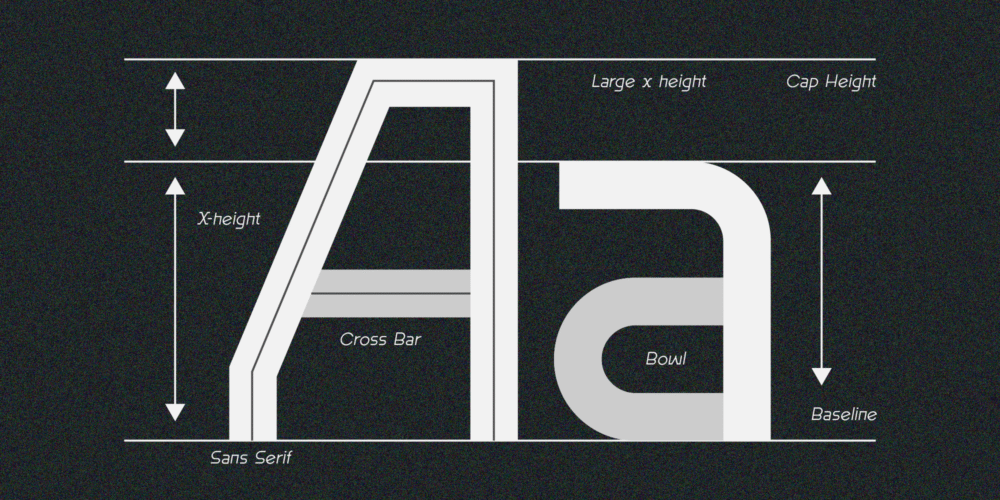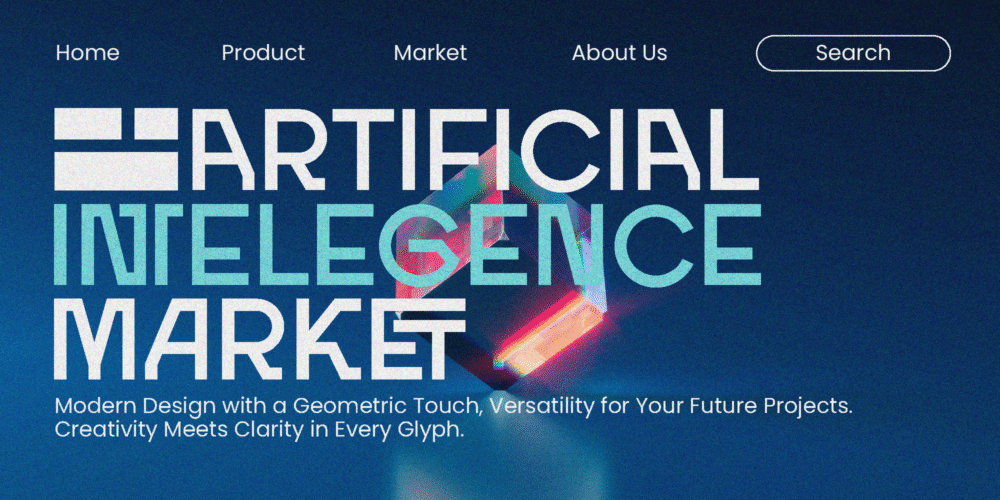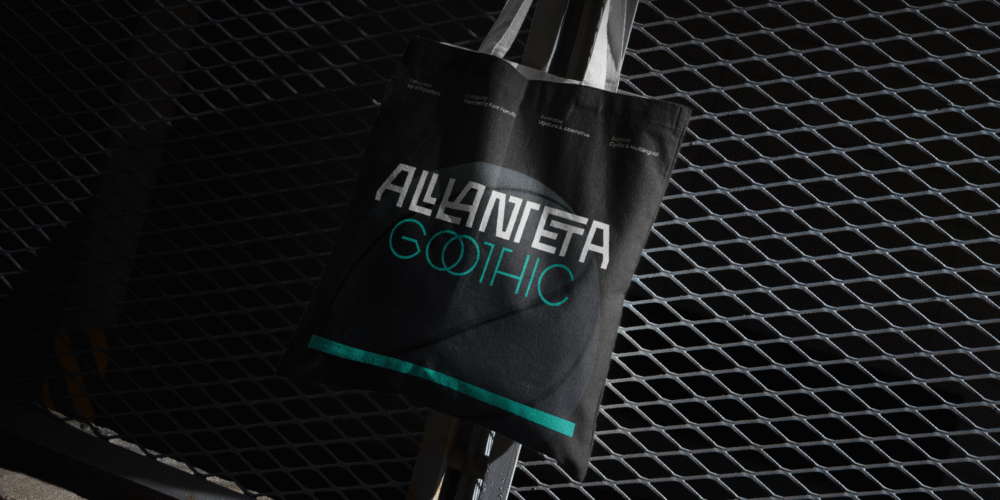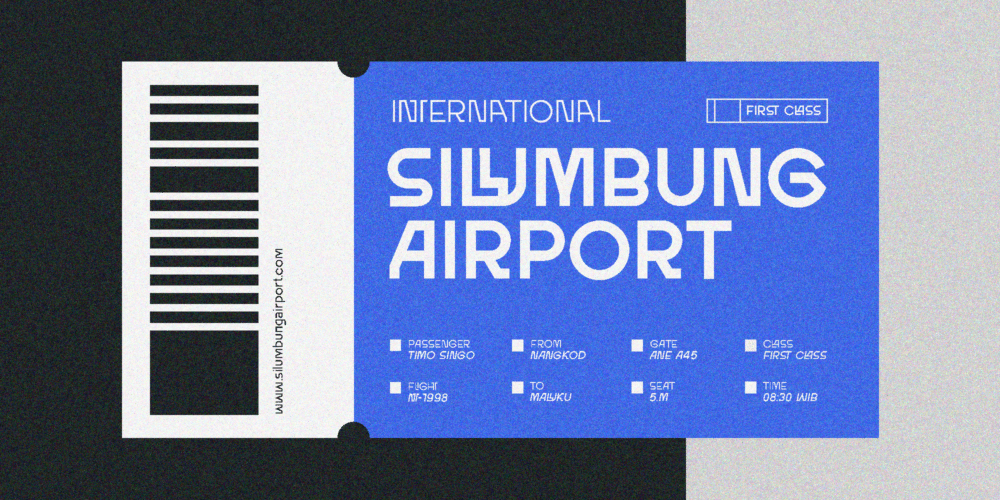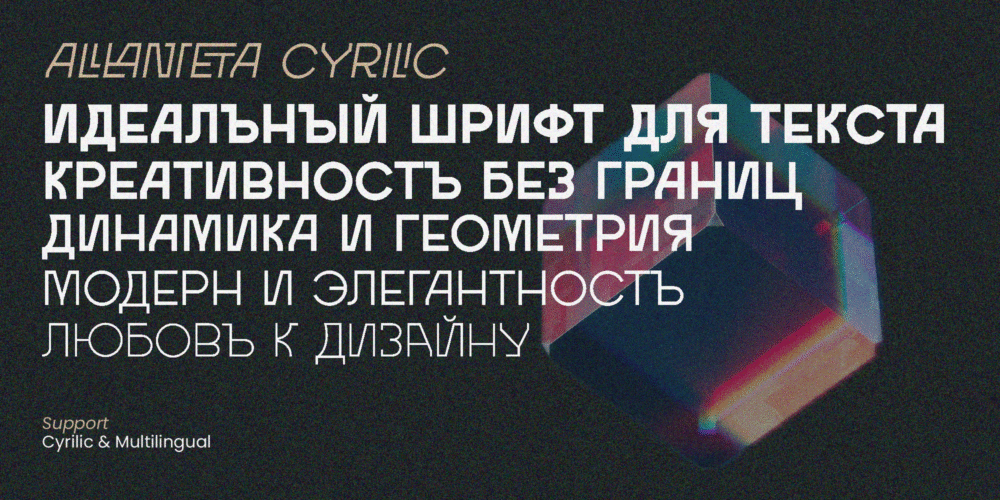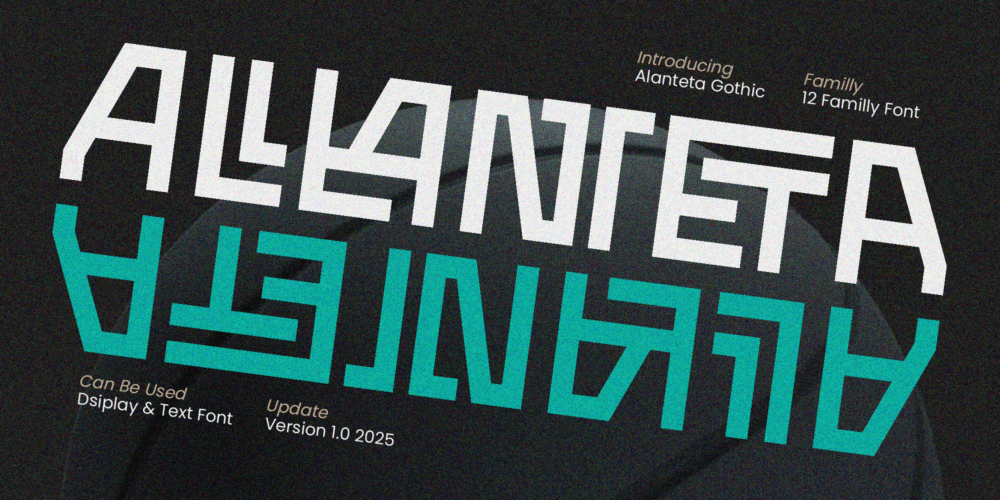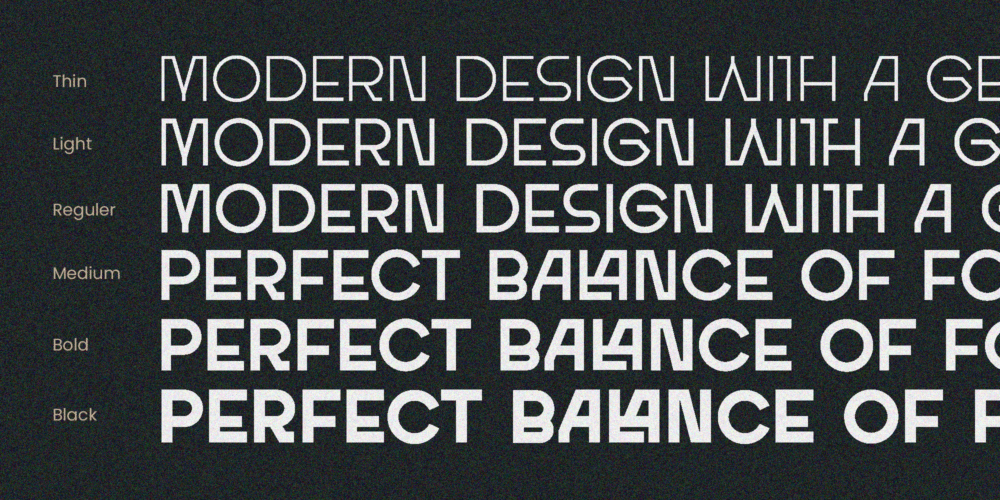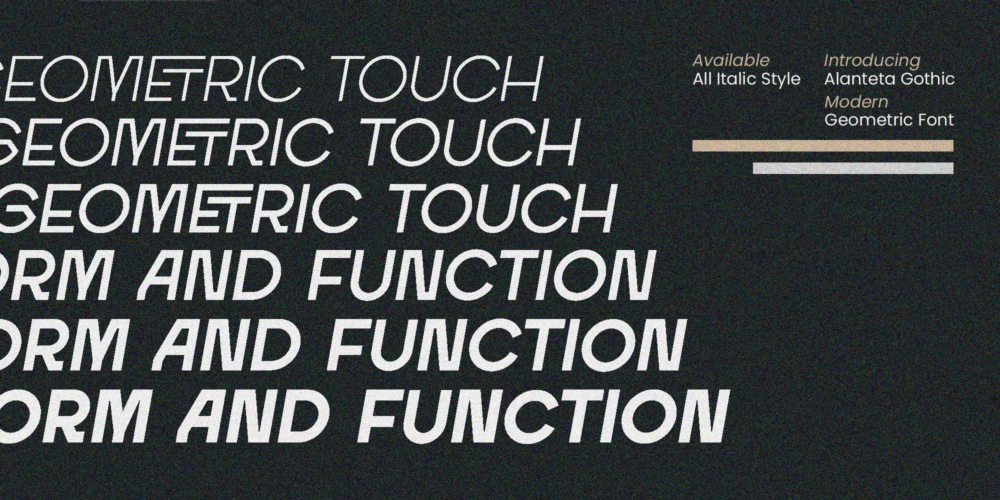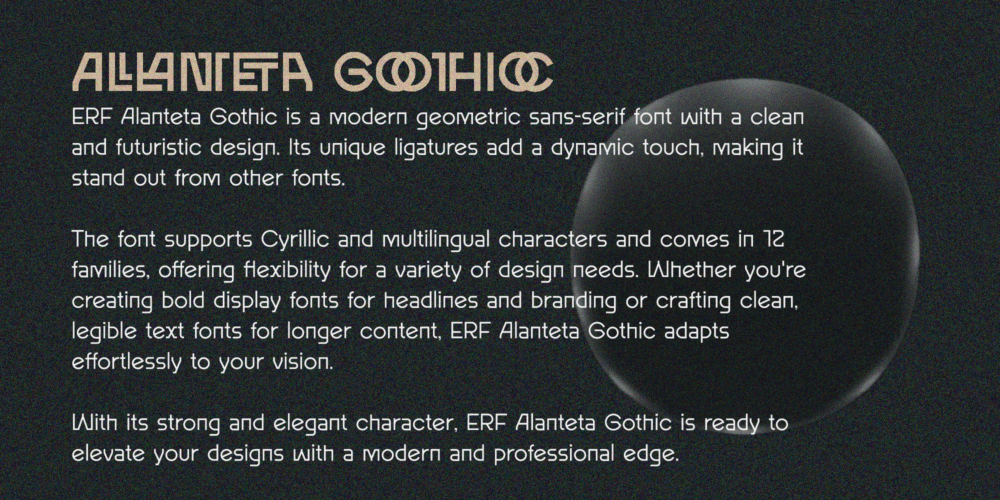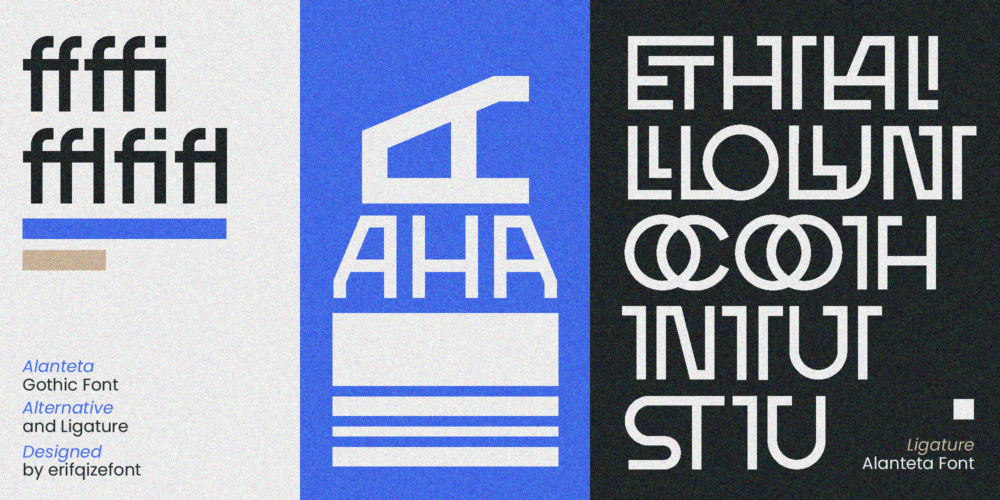
ERF Alanteta Goothic
ERF Alanteta Gothic is a modern geometric sans-serif font designed with a clean, futuristic aesthetic. Its distinctive ligatures bring a dynamic and creative touch, making it stand out in any design setting.
Supporting Cyrillic and multilingual characters, ERF Alanteta Gothic offers exceptional versatility with its 12 font family styles — giving you the flexibility to create bold, eye-catching headlines or clean, highly legible body text. Whether you’re designing for branding, editorial layouts, websites, or UI/UX projects, this font adapts seamlessly to your creative needs.
With its strong presence and elegant structure, ERF Alanteta Gothic is the perfect choice to elevate your designs with a modern, professional, and timeless appeal.
Shape the future of your designs with the refined power of ERF Alanteta Gothic.
ERF Alanteta Goothic Free Font
ERF Alanteta Gothic is a modern geometric sans-serif font designed with a clean, futuristic aesthetic. Its distinctive ligatures bring a dynamic and creative touch, making it stand out in any design setting